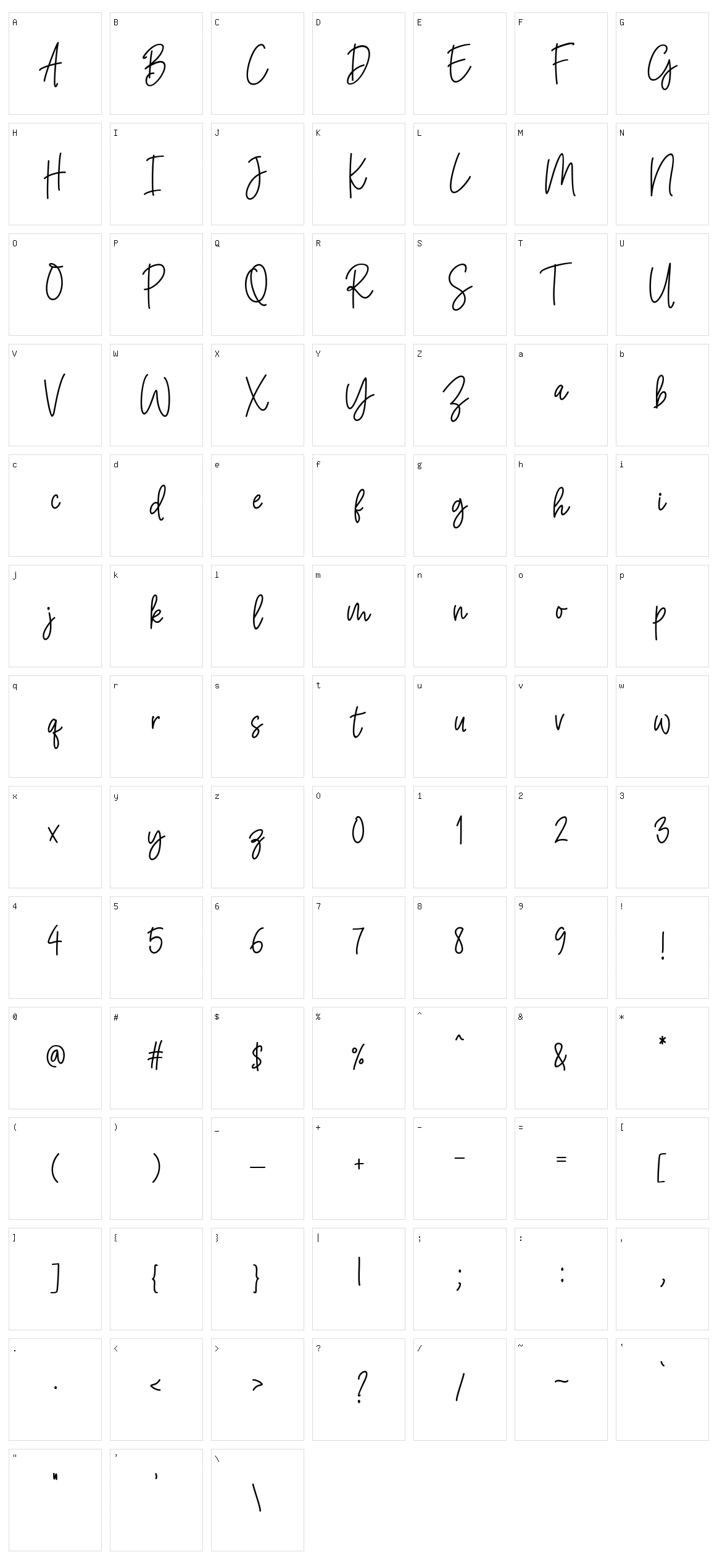
The free font Jahannam Balla is carefully designed by belovestudio, showcasing a thoughtful balance of creativity and usability and falls under the Script font style. When you download the ZIP file, it contains only 57.91 KB of font files, making it lightweight and quick to download. Please review the license details below to understand permitted usage and distribution rights. If license information is not available, we recommend using this font for personal projects only or contacting the author directly for commercial usage permissions.